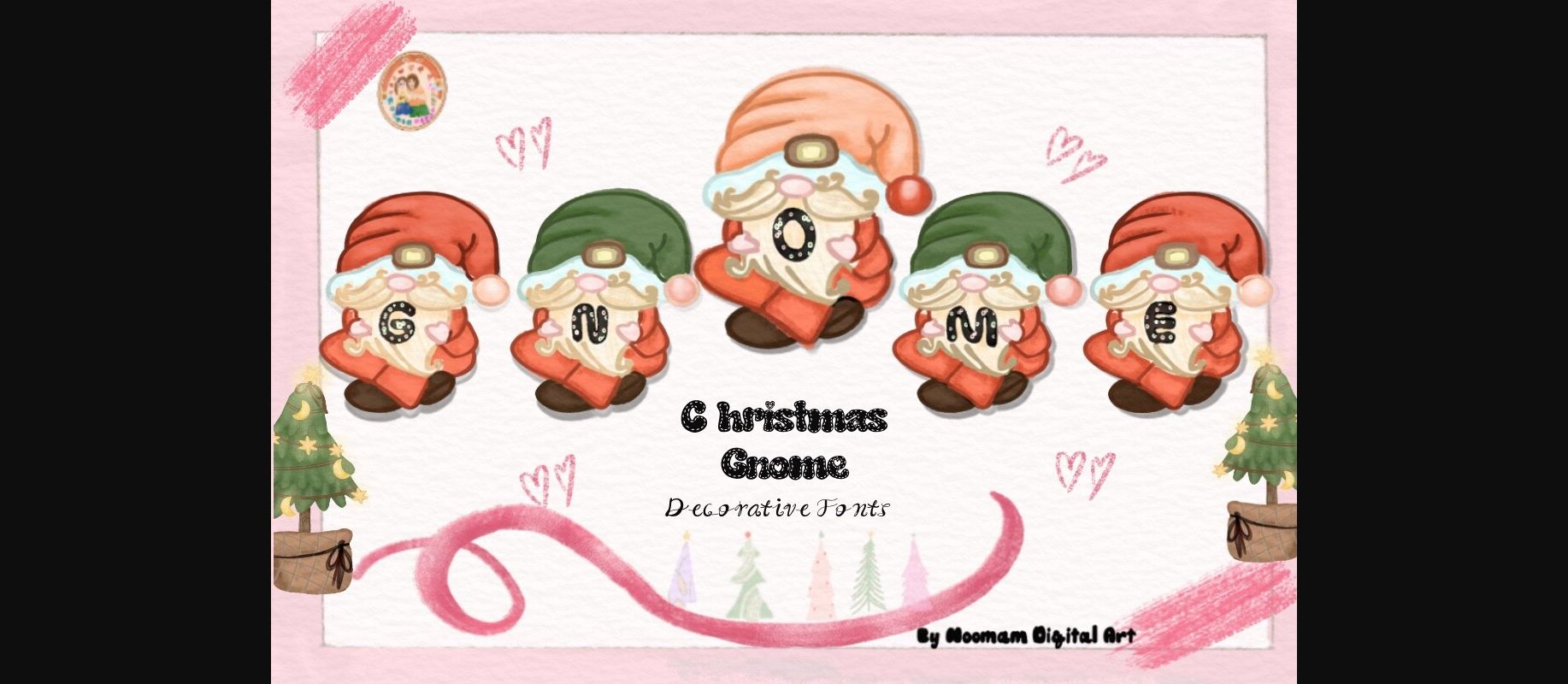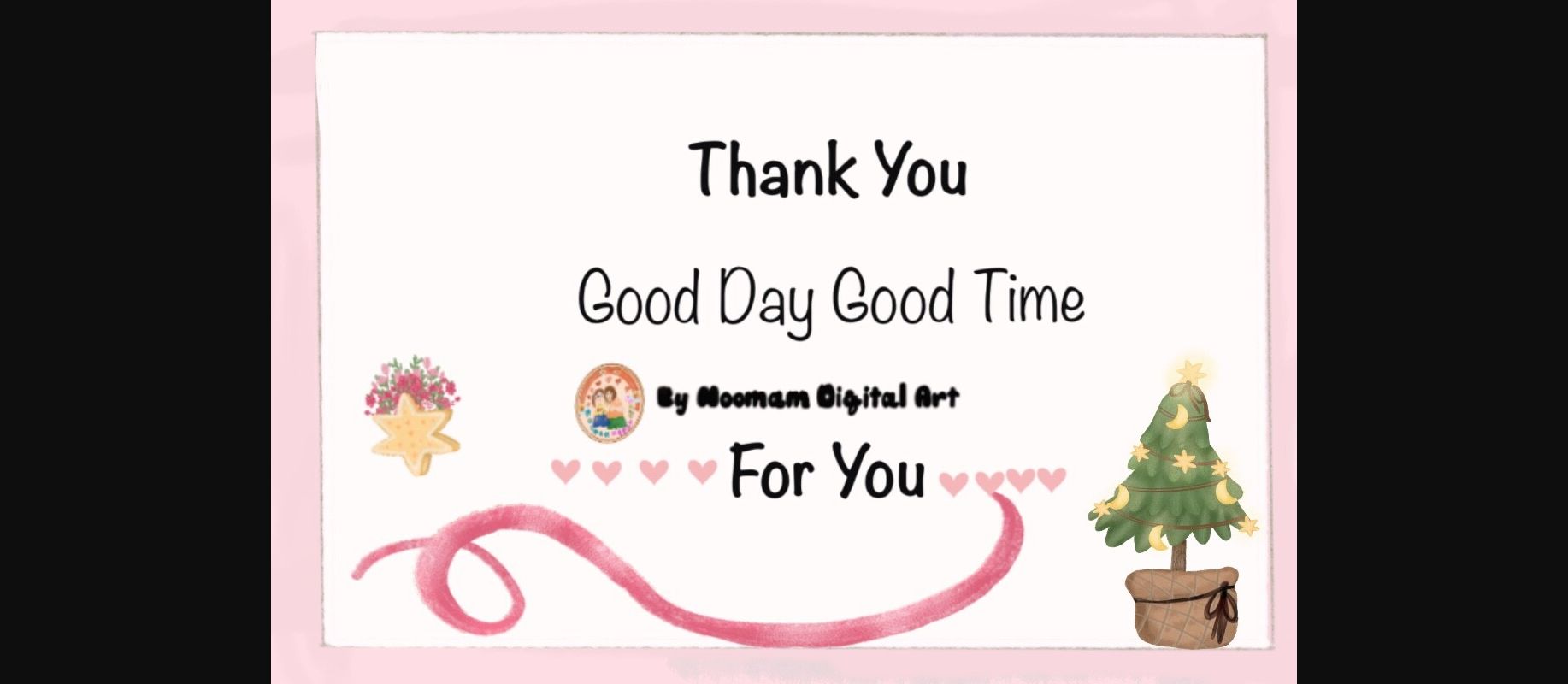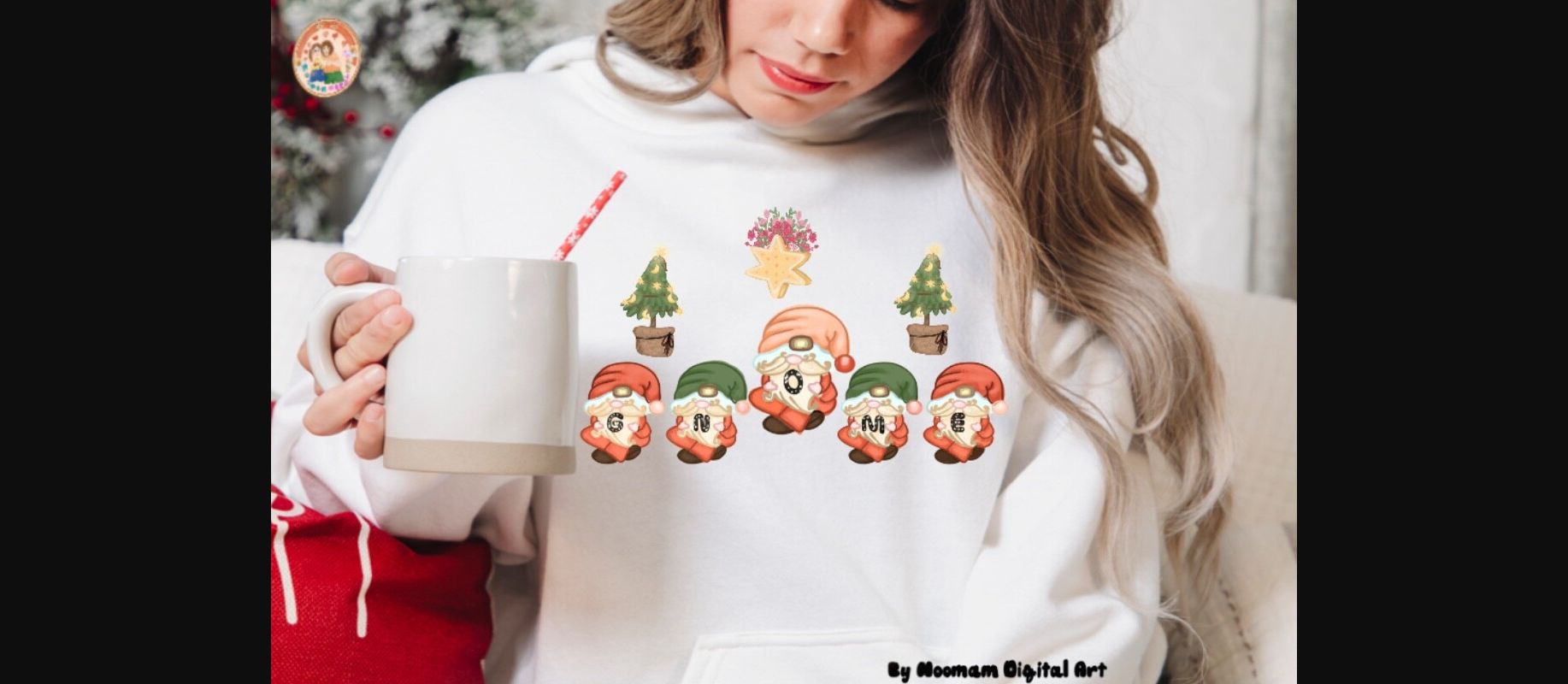
About Christmas Gnome Font
Introducing “Christmas Gnome,” a whimsical and decorative font where each letter is playfully inscribed on charming gnomes. This festive typeface brings a touch of holiday magic to your designs, perfect for creating cheerful Christmas cards, invitations, or any project that seeks a delightful and enchanting character. Let the Christmas Gnome font add a dash of merriment and a sprinkle of joy to your festive creations, making every word feel like a whimsical celebration.